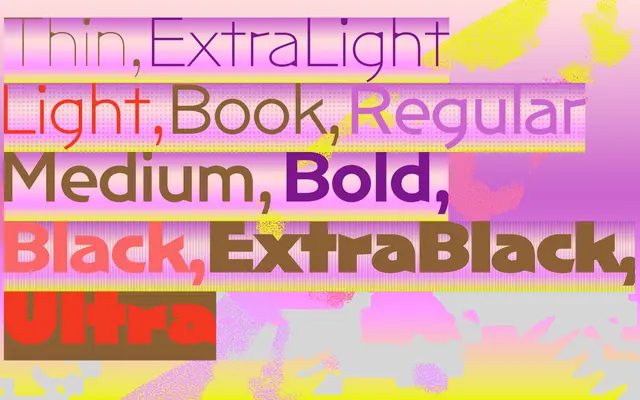
NaN Archy
NaN · Hélène Marian · 2024
NaN Archy specimen from NaN
A sans serif by Hélène Marian split into two versions: one that treats structural weight-range glitches as a deliberate feature, another that channels the same brush-lettering origins into a clean, Art Deco-tinged workhorse.
NaN Archy emerges from Marian's paint-brush lettering practice, then strips back most of the organic quality through digital treatment. The [ON] version preserves structural simplifications from the Ultra weight across the full range, so lighter weights reveal unexpected black spots that give text a rhythmic, score-like quality. The [OFF] version drops the glitches entirely, retaining humanist proportions and a faint Art Deco character suited to sustained reading and versatile use.
Rooted in paint-brush lettering and processed through a digital lens, NaN Archy is a humanist sans with two distinct versions: one embracing structural glitches across a wide weight range, the other a restrained workhorse with subtle Art Deco proportions.